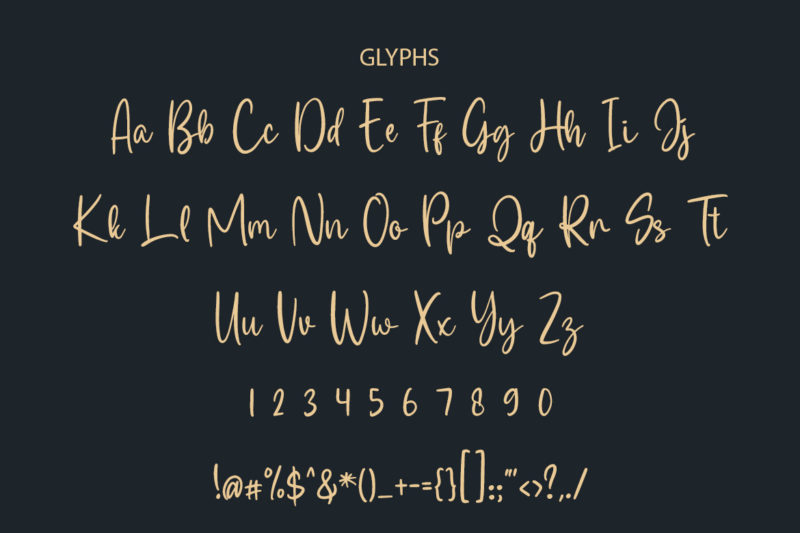
Frederica Script Font
Frederica is a beautiful calligraphy script font . It’s perfect for adding a graceful feel to any design project.
Frederica is a beautiful calligraphy script font . It’s perfect for adding a graceful feel to any design project. Frederica is perfect for branding projects, logo, wedding designs, social media posts, advertisements, product packaging, product designs, label, photography, watermark, invitation, stationery and any projects.